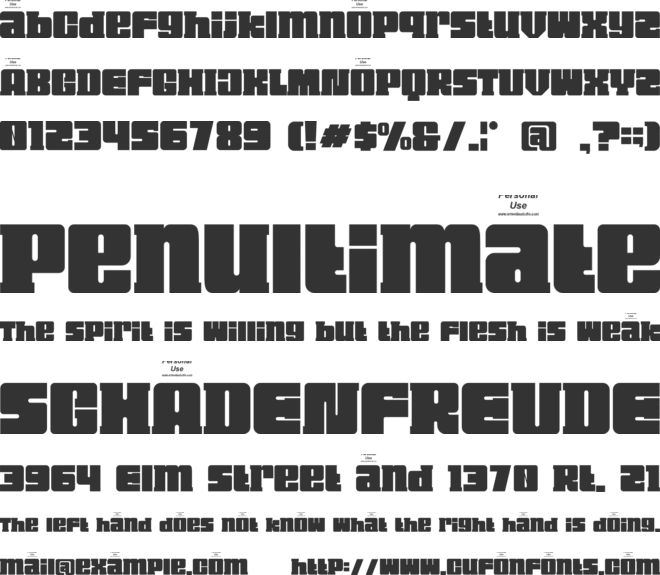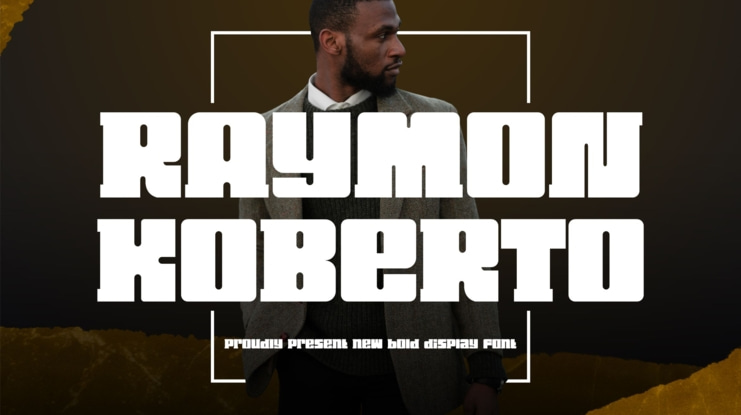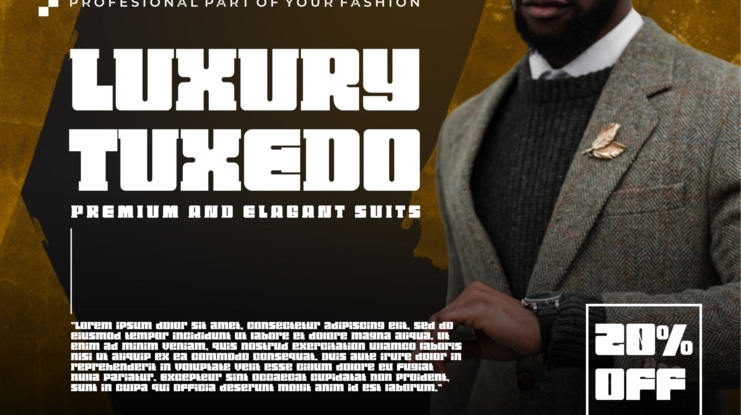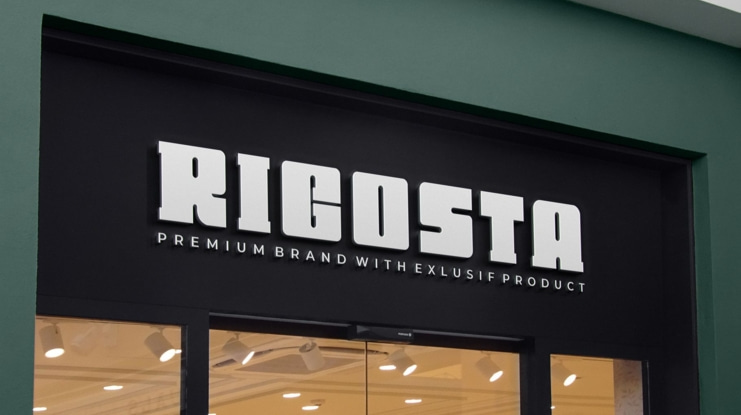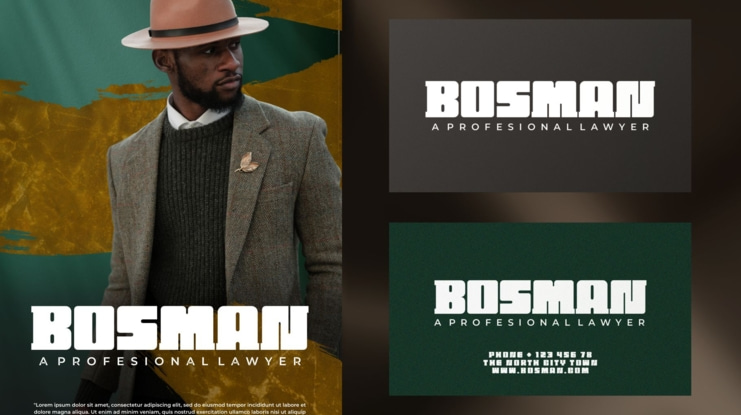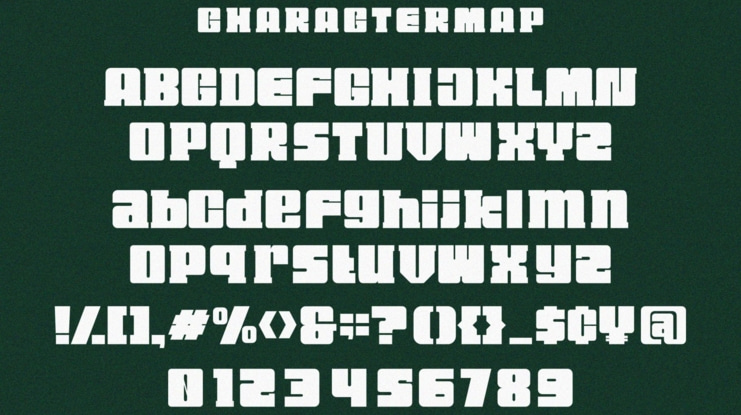
Raymond Koberto Font
Introducing Raymond Koberto is New Bold Unique Display Font is a modern, trendy, bouncy and cute display font. It has a unique character with wood theme. It is perfect to be combined with invitation card designs, company logos, movie titles, movie names, business cards, book titles, brand names and various other designs.
FEATURE
- Uppercase and lowercase
- Numbering and Punctuation